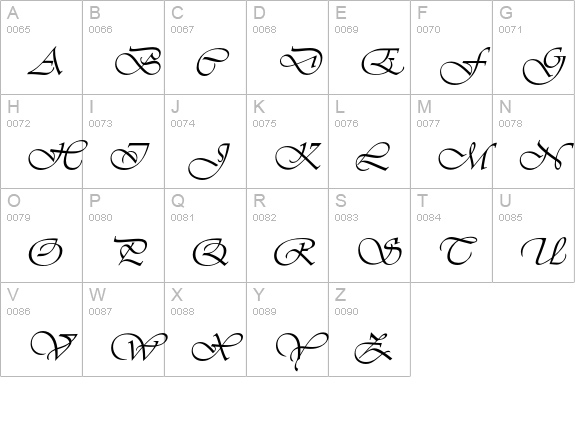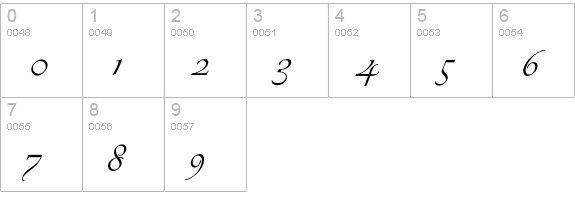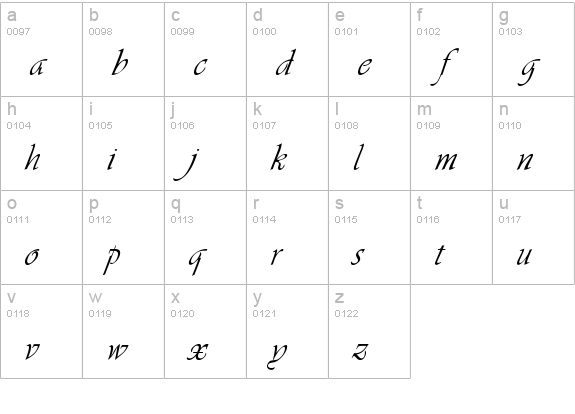
VivaldiEF Font Details
VivaldiEF is a stunning and elegant font that combines modern sophistication with a touch of classic charm. Its delicate curves and graceful strokes create a sense of timeless beauty, making it the perfect choice for any design project that requires an air of refinement. This font boasts a unique blend of versatility and legibility, allowing it to effortlessly adapt to various typographic needs. Whether used for headlines, body text, or branding materials, VivaldiEF adds a touch of sophistication to any composition, captivating readers with its effortlessly stylish appearance. One of the most remarkable features of VivaldiEF is that it is available for free. Yes, you read that right – this remarkable font can be downloaded at no cost from FontsMarket.com. This means that designers, creatives, and typographers alike can enjoy the beauty and versatility of VivaldiEF without any financial constraints. By freely offering VivaldiEF, FontsMarket.com aims to empower designers and encourage creativity without any barriers. This font opens up endless possibilities for creating stunning designs without the worry of budget limitations. Whether you are a professional designer or an aspiring artist, VivaldiEF provides you with the tools to bring your vision to life. Download VivaldiEF today from FontsMarket.com and experience the beauty and versatility of this remarkable font for yourself. Let its timeless elegance elevate your designs and captivate your audience. With VivaldiEF, your typography will never be the same again.